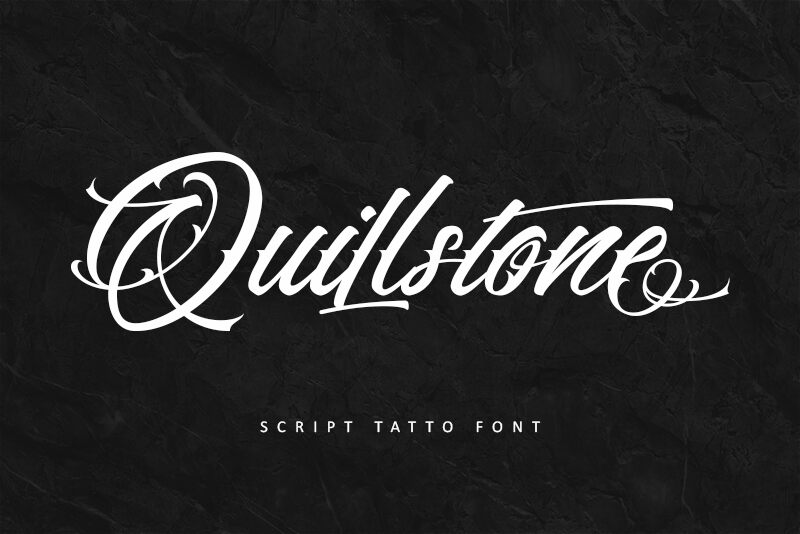
Quillstone font by Letterara is an elegant, decorative, and flowing calligraphy font with script-like characteristics and flourish elements. The tattoo-typical design is indeed charming, blending both unique calligraphic influences and artistry together. Stylish cursive letters are offered with the typeface, as well as lovely connecting strokes and some extended ascenders.
Such a free beautiful font is perfect for weddings, invitations, greeting card designs, tattoo art-themed posters or business cards as well as beauty product packaging. Other suitable use cases are branding projects like logos or labels; social media posts with beautiful quotes; book covers.